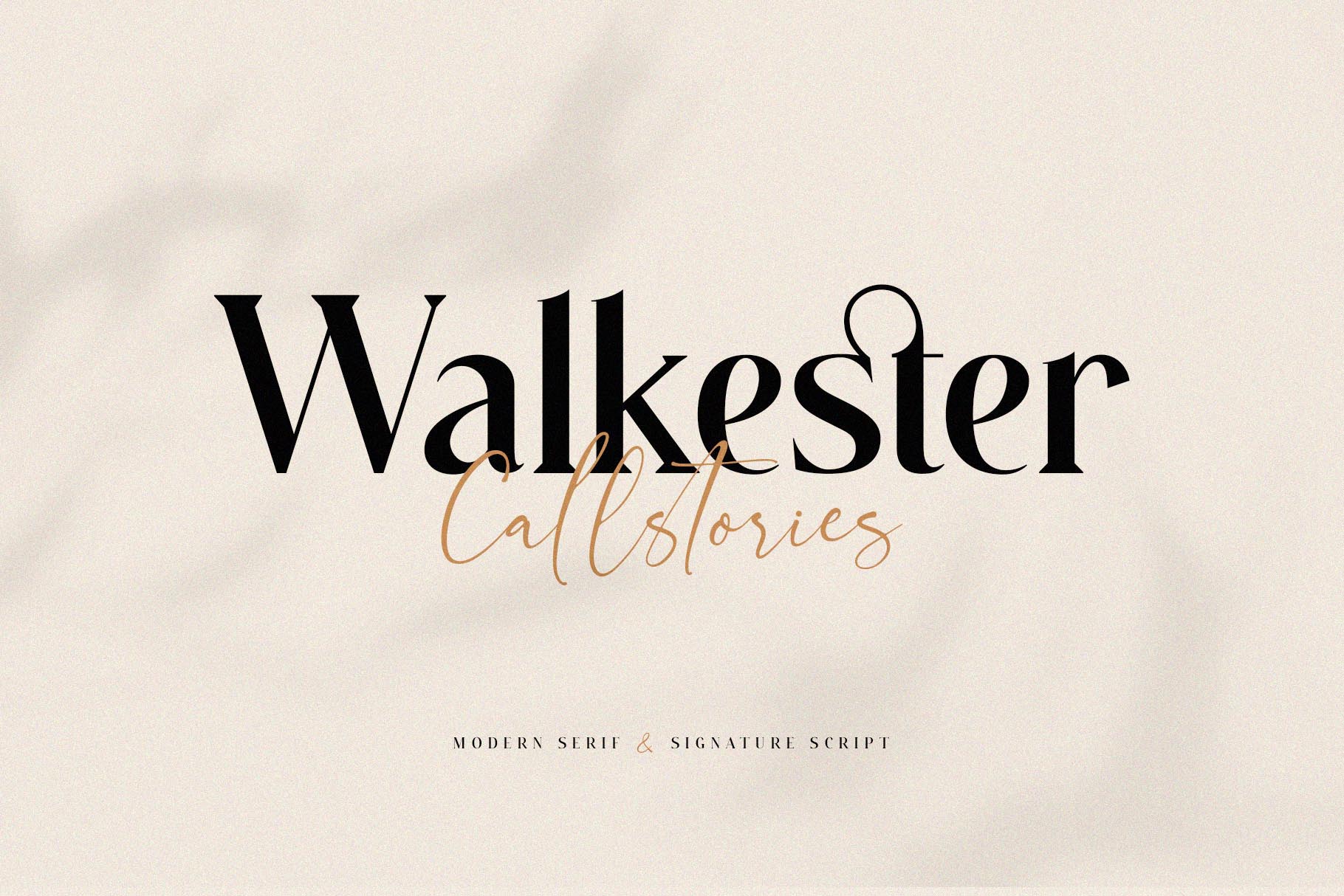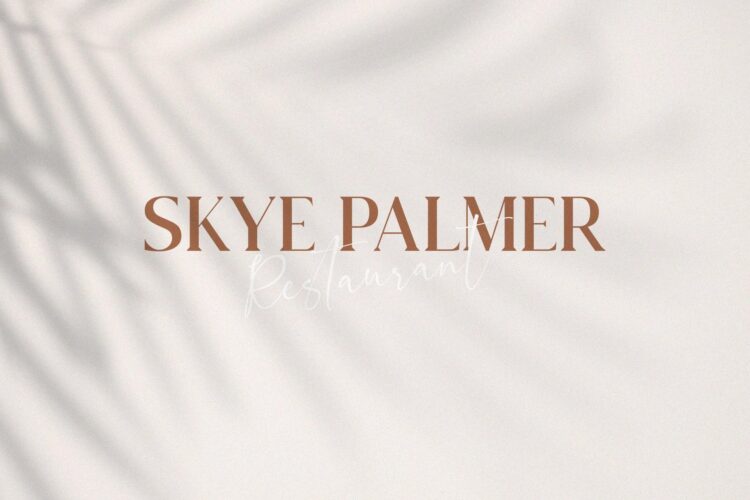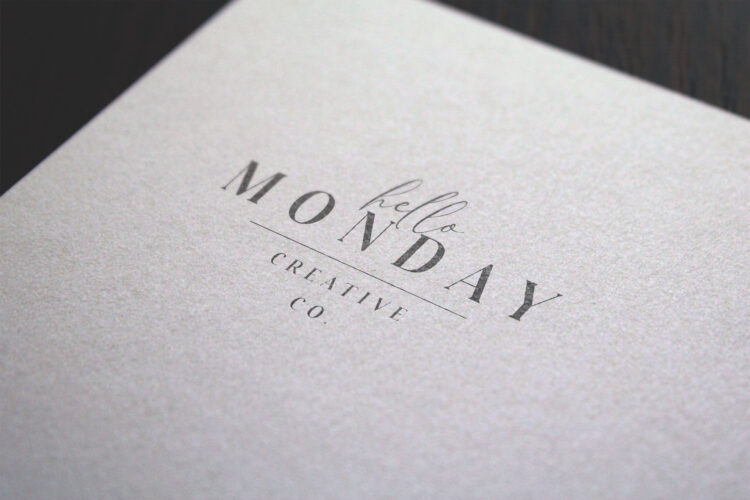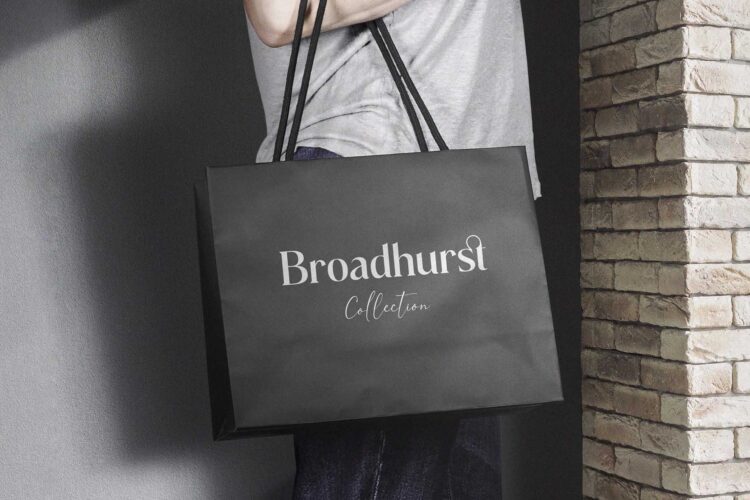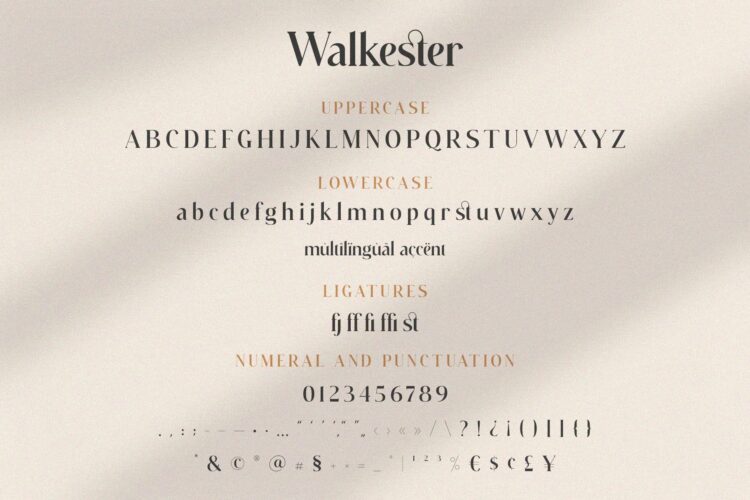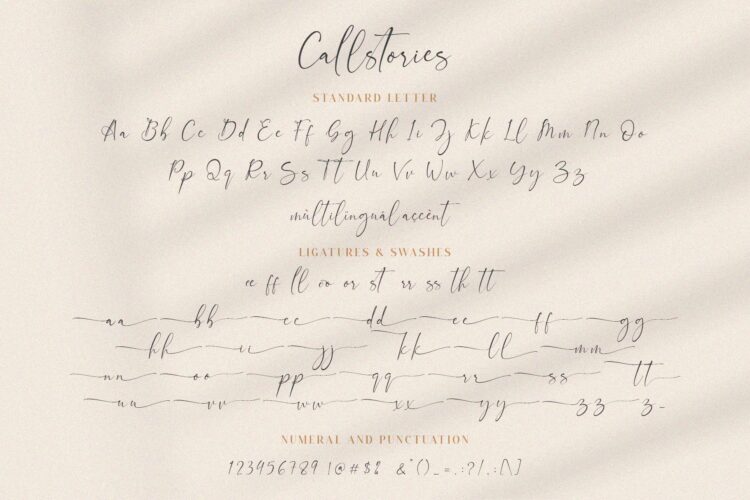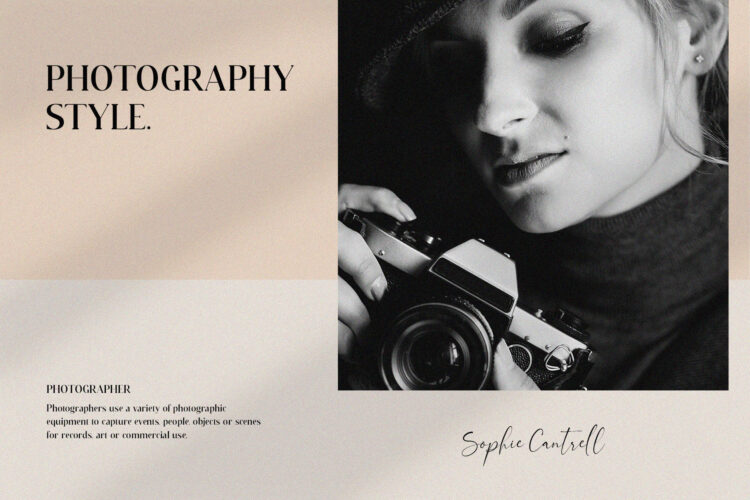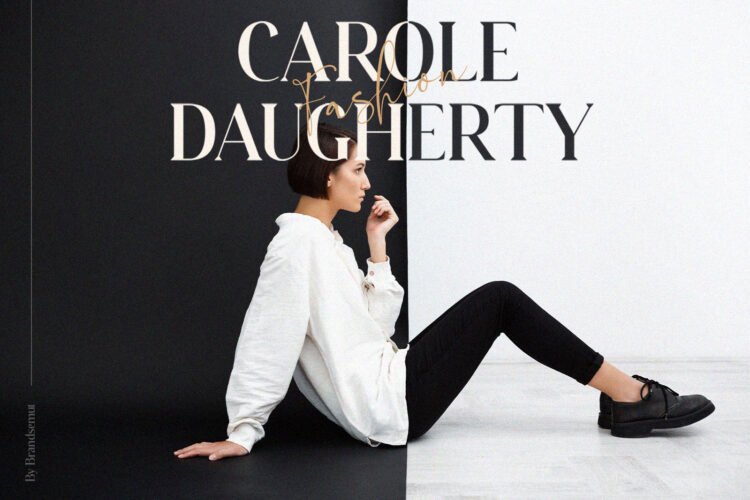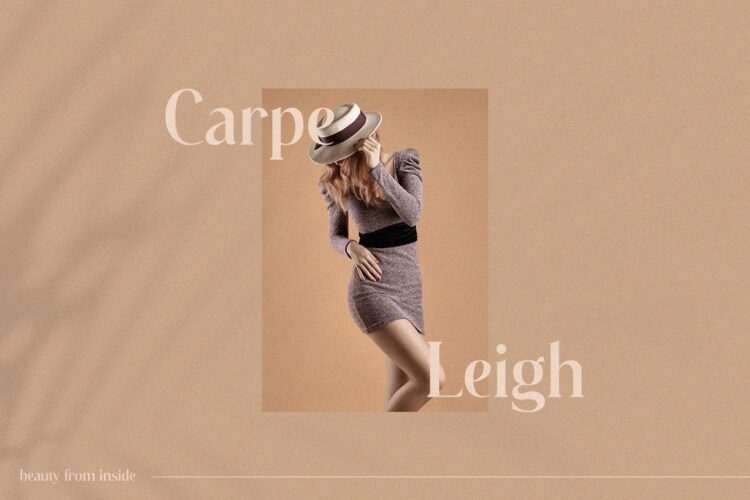
Introducing the new Walkester Font Duo!!! Walkester is a classy font duo that includes a modern serif and signature script – already matched up and ready to be used together for your next design! For those of you who are needing a touch of elegant, stylish, classy, chic and modernity for your designs, this font was created for you!
Walkester Font Duo was built with OpenType features and includes ligatures, alternates, ending swashes, numbers, punctuation, and it also supports other languages.
– Walkester Serif Font
– Callstories Script Font
Walkester – Elegant Stylish Font Duo